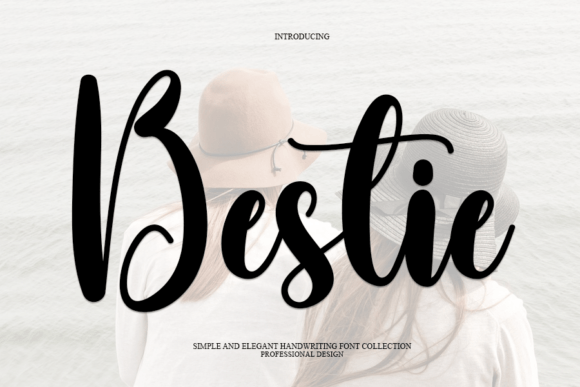
The Quest for the Perfect Font: Discovering Bestie
I still remember the design project that led me to discover the Bestie font. I was working on a custom invitation for a friend’s wedding, and I was determined to make it perfect. But, as I scrolled through my font library, I just couldn’t find the right fit. That’s when a fellow designer recommended Bestie, a delicate handwritten font that promised to add a touch of elegance to any design. I was skeptical at first, but one look at the font and I was hooked.
An Honest Review of Bestie Font
So, what makes Bestie so special? Let’s dive into the good stuff and, of course, a few quirks I’ve noticed.
• 💕 Delicate and elegant: Bestie has a beautiful, hand-crafted feel that’s perfect for invitations, titles, and more.
• ✅ Highly versatile: Whether you’re designing a food label, a wedding invitation, or a social media graphic, Bestie adapts seamlessly.
• 🎨 Great for branding: The font’s unique personality makes it an excellent choice for crafting a distinctive brand voice.
• 📝 Easy to read: Despite its delicate nature, Bestie remains surprisingly legible, even at smaller sizes.
• ⚠️ Limited use for body text: Bestie shines in titles and short paragraphs, but it’s not ideal for longer blocks of text.
• 🤔 Some characters may require manual kerning: While the font overall is well-spaced, you might need to tweak a few characters for optimal results.
The Story Behind Bestie Font
Bestie was crafted with love by a talented type designer who aimed to create a font that felt both personal and versatile. Inspired by classic handwritten scripts and modern digital trends, Bestie brings a fresh, youthful vibe to any design. Whether you’re a professional designer or a creative hobbyist, Bestie invites you to add a touch of whimsy and sophistication to your work.
Q: What makes Bestie font unique?
A: Bestie stands out with its delicate, hand-crafted feel and surprising versatility across various design projects.
Q: Is Bestie suitable for body text?
A: While Bestie shines in titles and short paragraphs, it’s not ideal for longer blocks of text due to its delicate nature.